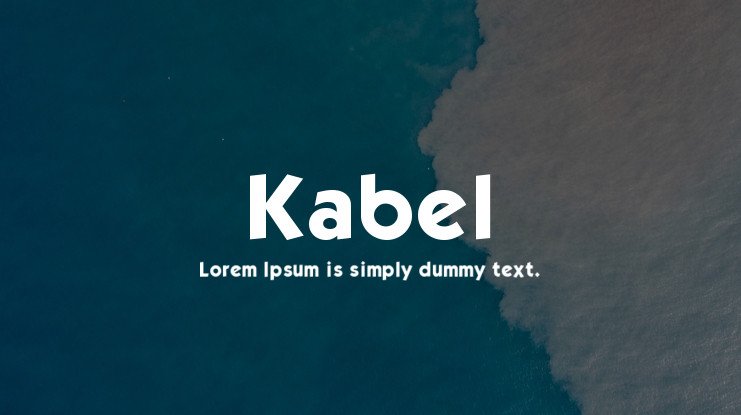
Kabel is a sans-serif typeface intended by German designer Rudolf Koch, and released because of the Klingspor foundry from 1927 onwards.
Kabel belongs towards the “geometric” kind of sans-serifs, which was getting well known in Germany for the time of Kabel’s creation.
Primarily based loosely about the structure from the circle and straight lines, it even so applies many uncommon design and style selections, such as a delicately small x-height (though larger during the bold bodyweight), a tilted ‘e’ and irregularly angled terminals, so as to add delicacy and an irregularity suggesting classy calligraphy, of which Koch was a professional.
Several different rereleases and digitisations happen to be produced.